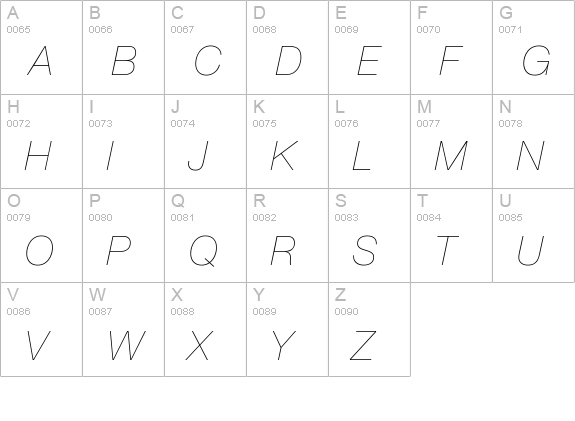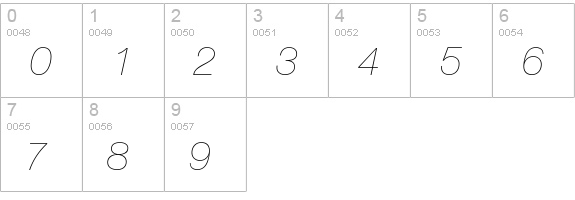
Context Reprise Light SSi Extra Light Italic Font Details
Context Reprise Light SSi Extra Light Italic is a refined, elegant, italic variant in the Context typeface family \xE2\x80\x94 well suited to elegant body text, refined sub-headings, and luxury branding.
Context Reprise Light SSi Extra Light Italic is a delicate and elegant font that exudes sophistication and modernity. With its extra light weight and subtle italic style, this font is perfect for creating a refined and stylish look in your design projects. The flowing curves and graceful slant of the letters give it a sophisticated and artistic feel, making it ideal for use in branding, advertising, and editorial design. And the best part is, this stunning font is completely free to download at FontsMarket.com! So you can easily add a touch of elegance and creativity to your projects without any cost. Don't miss out on this beautiful typeface that will elevate your designs to the next level. Download Context Reprise Light SSi Extra Light Italic today and let your creativity shine!